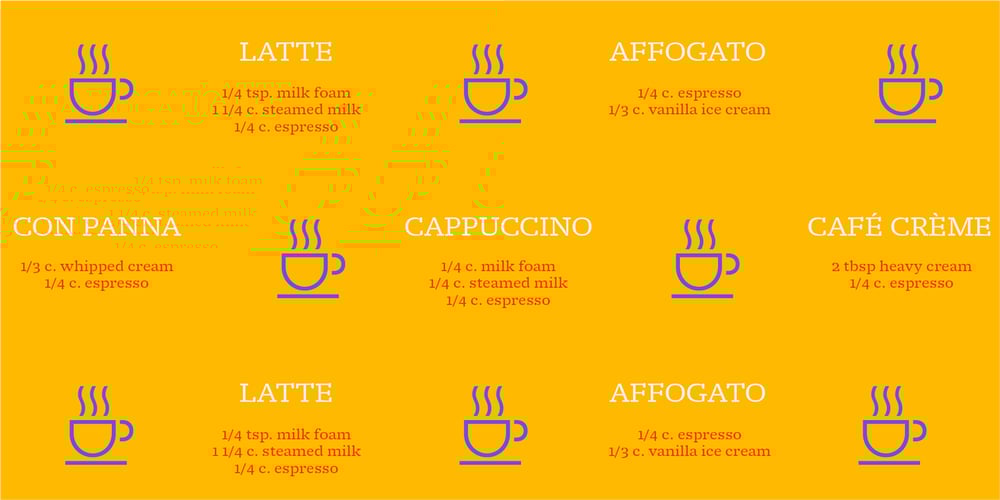
Molto Font Family was designed by Xavier Dupré and published by TypeTogether. Molto contains 9 styles and family package options. Xavier Dupre’s Molto font family is a tonal master, creating tenderness in a slab serif and tempering toughness with flourishes. Slab serifs created their original niche by their ability to grab attention and overwhelm, which caused them to be seen as strong, dominant, and desired fonts, especially in advertising. Slab serifs are the result of placing defined edges on something meant to take up an inordinate amount of space, rather than meant to be graceful. Molto updates this concept to allow a greater, and gentler, range in the lighter weights. Molto’s nine weights are defined by their intended use. The two extreme weights (Hair and Fat) act as display partners for magazines, titles, and posters. The Hair weight is runway ready with its sturdy serifs, breathy internal space, and stable lettershapes that were designed both to perform and impress. Molto’s Fat weight packs maximum punch in a believable way. Its wide and deliberate curves contrast against thin connections and landing strip stems. Molto can be put to perfect use in a fashion magazine using swashy Hair headlines set against its darkest weight. Molto’s seven intermediate weights, with their classic and legible shapes, are meant for texts of all sizes. The notches on diagonals, distinct numerals, and acute terminals grant benefits from caption sizes up to headings. Molto’s refined light weights and punchy heavy weights set the stage for a swashy surprise — alternate capital letters act as refined garments laid atop its concrete skeleton. The Molto font family rejects saving space in favour of intensifying shapes, placing maximum weight on the edges for better legibility and impact. Latin-based digital and printed designs will benefit from Molto’s design voice and breadth. This means UI, video, and online text, and print materials like dictionaries, packaging, advertising, and branding can all put Molto’s robust forms to multipurpose use. Molto successfully creates balance in a slab serif design: an opinionated and striking type family, stalwart in captions and exuberant in display, thanks to swashes which add some originality to the slab category.